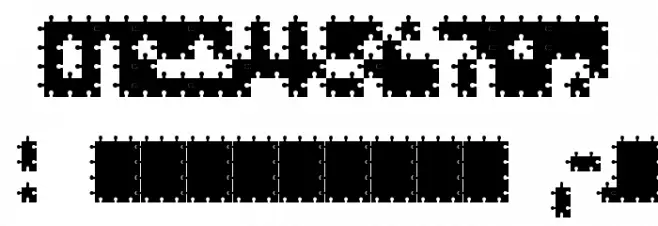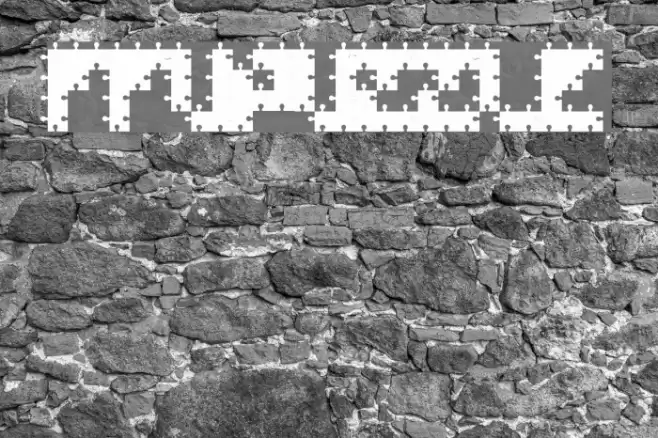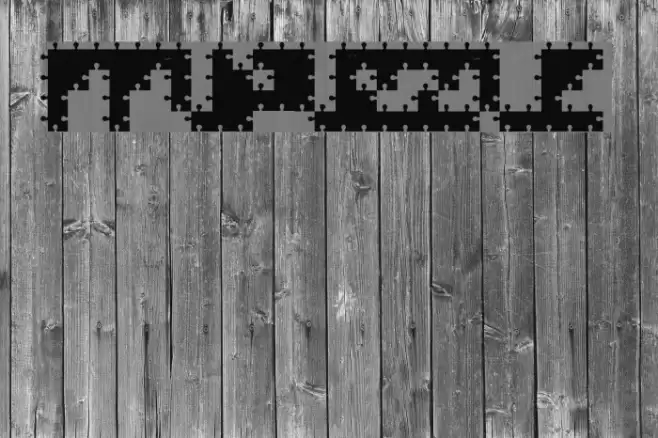
FFUPuzzle Font
This font features a unique, puzzle-like design with each character appearing as if it's composed of interlocking pieces. The bold, blocky appearance gives it a strong visual impact, making it ideal for attention-grabbing designs. The characters are uniformly wide, with consistent spacing that maintains readability despite the intricate design. The font's playful yet structured aesthetic makes it suitable for creative projects that require a distinctive and memorable typeface.
A bold, puzzle-themed font with interlocking character design.